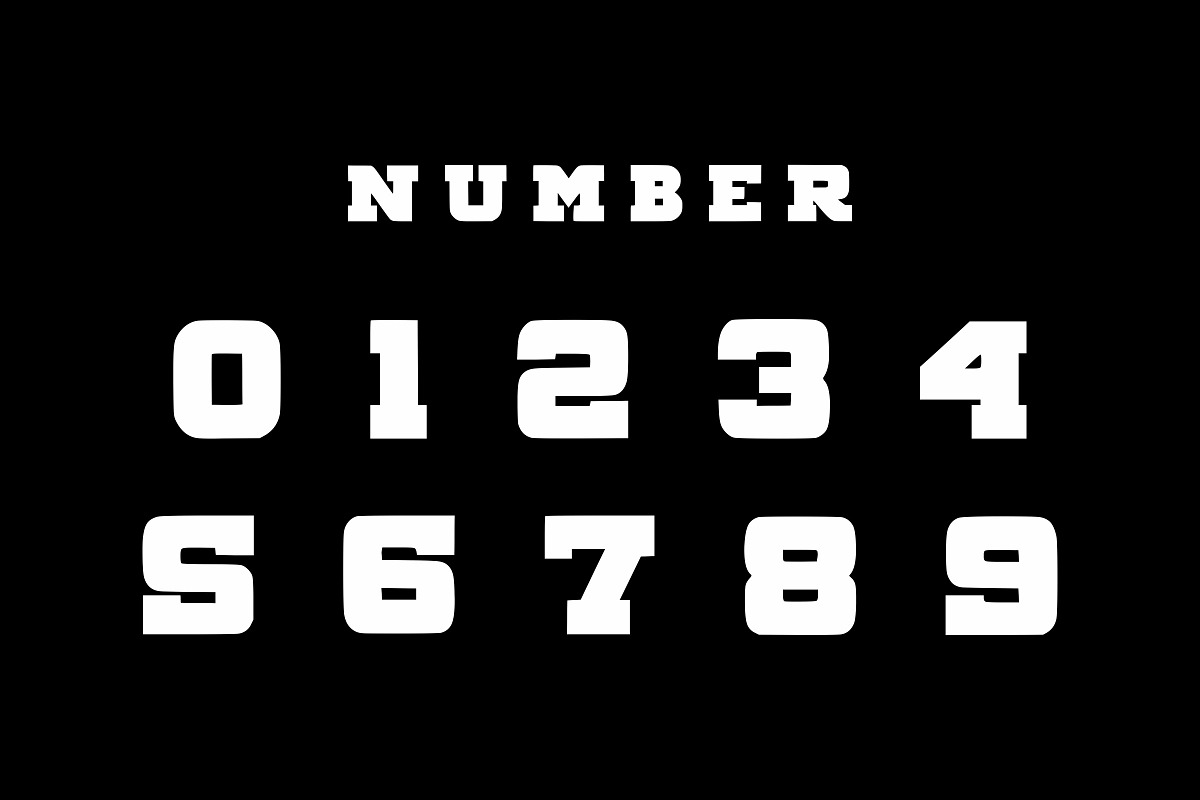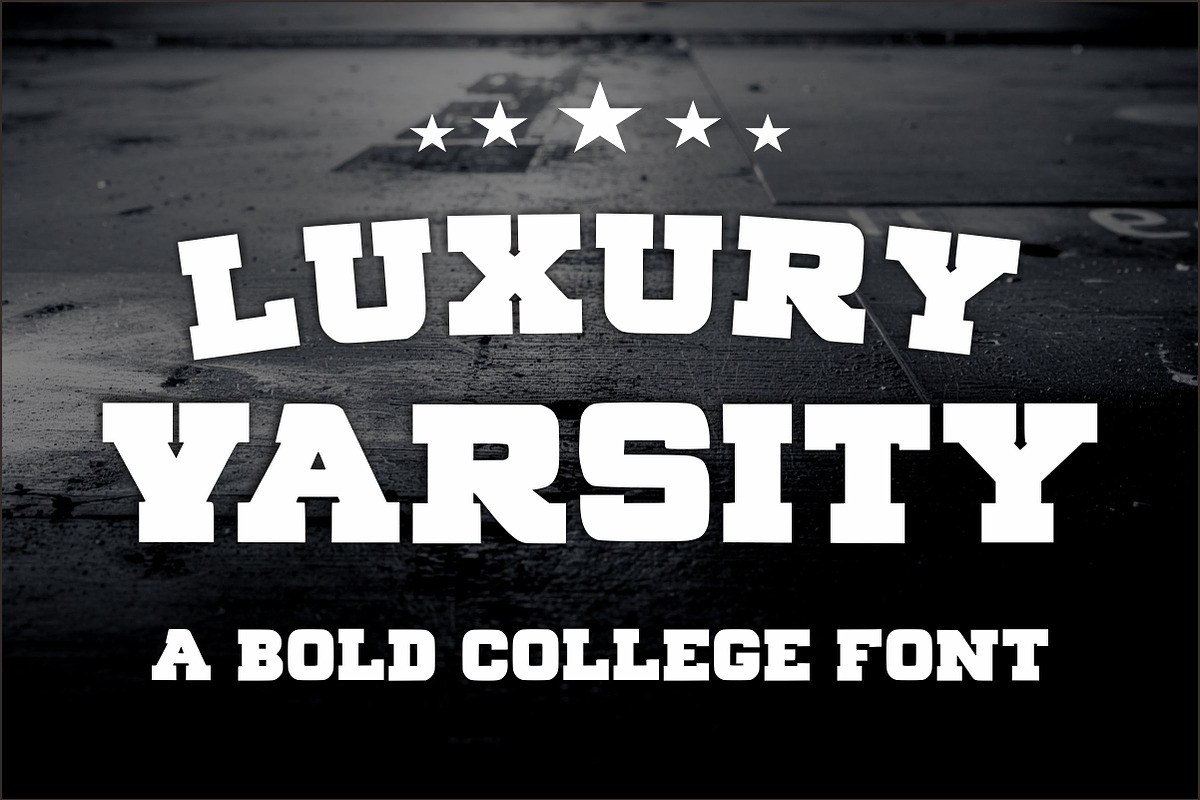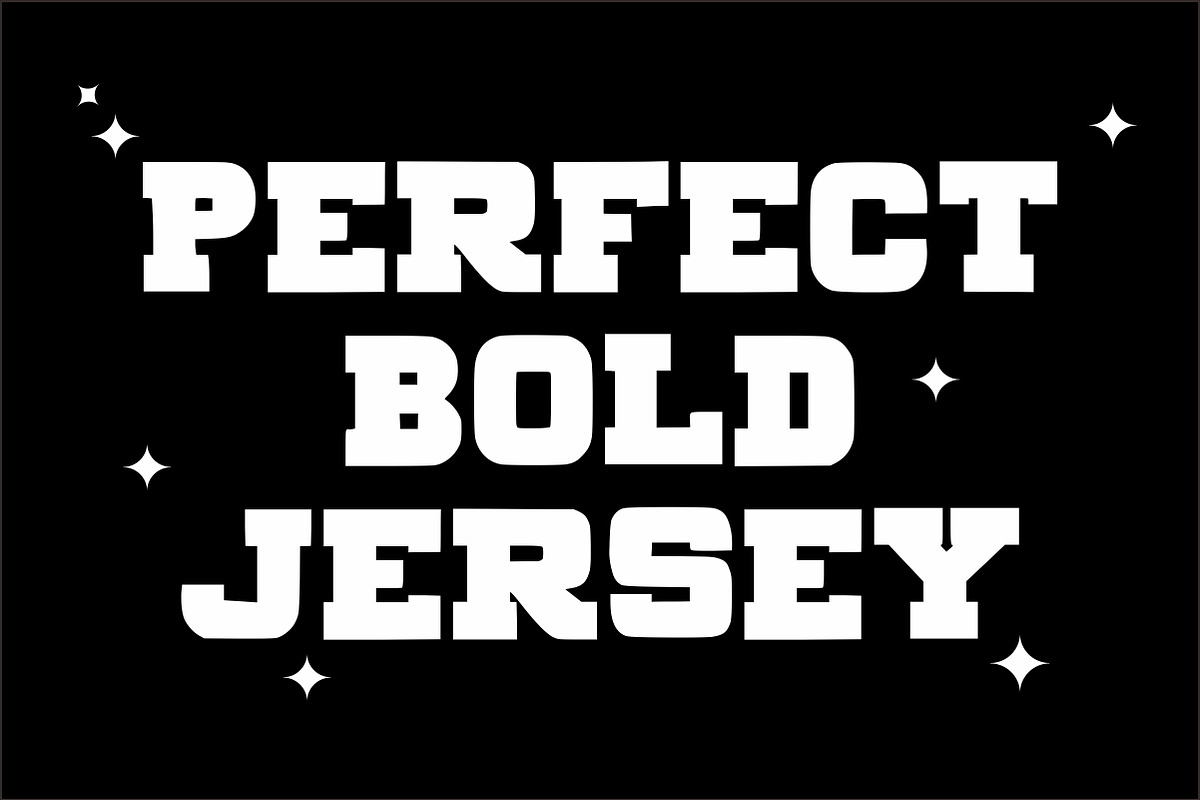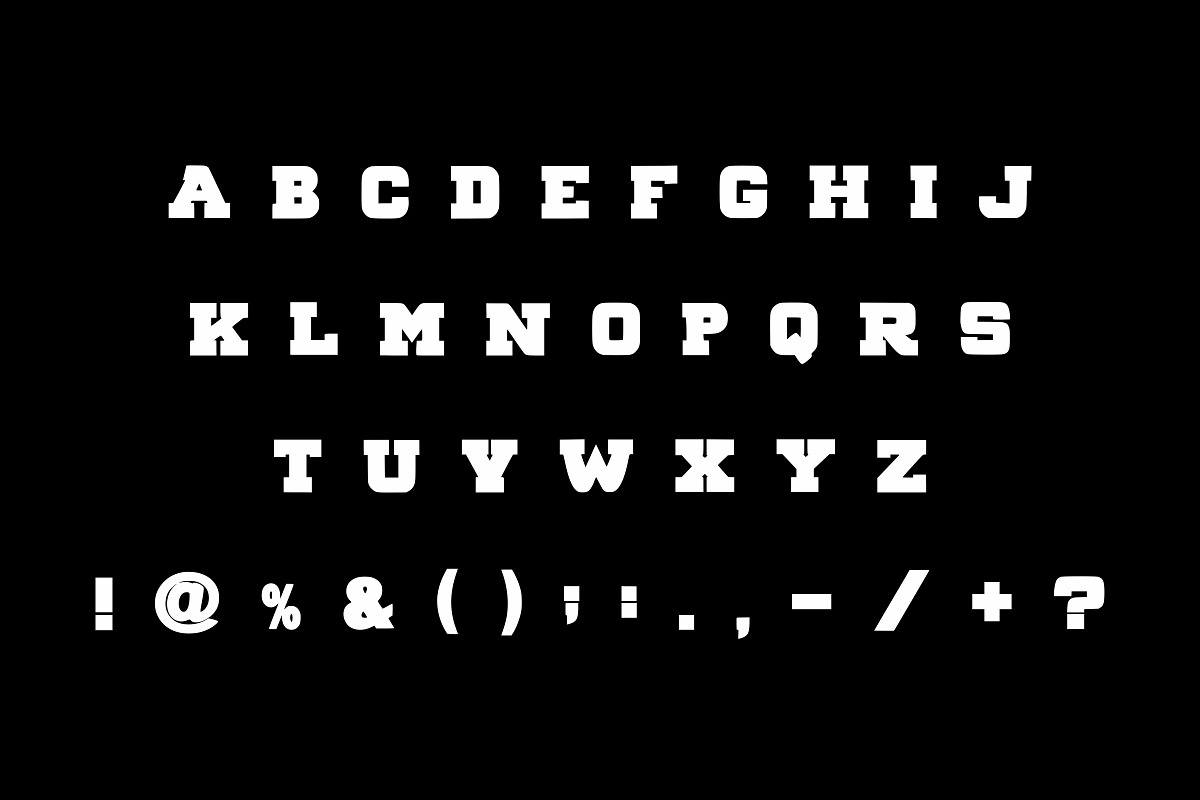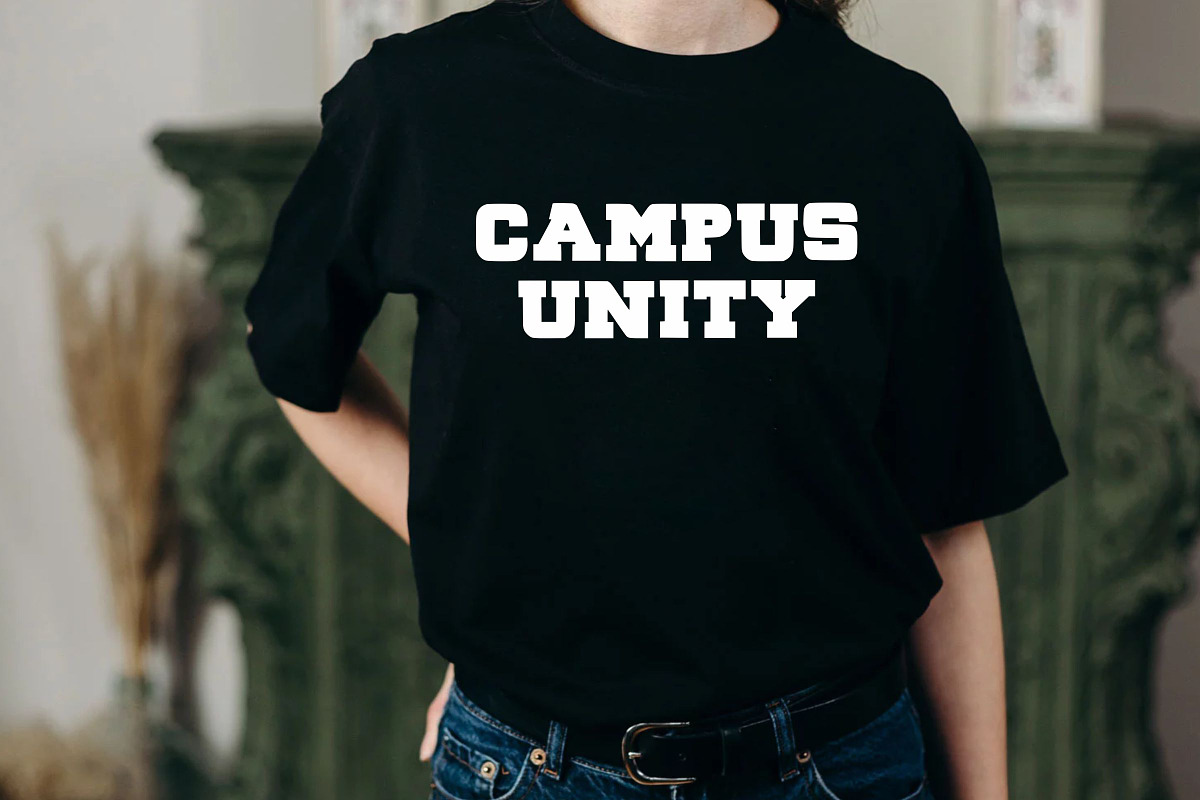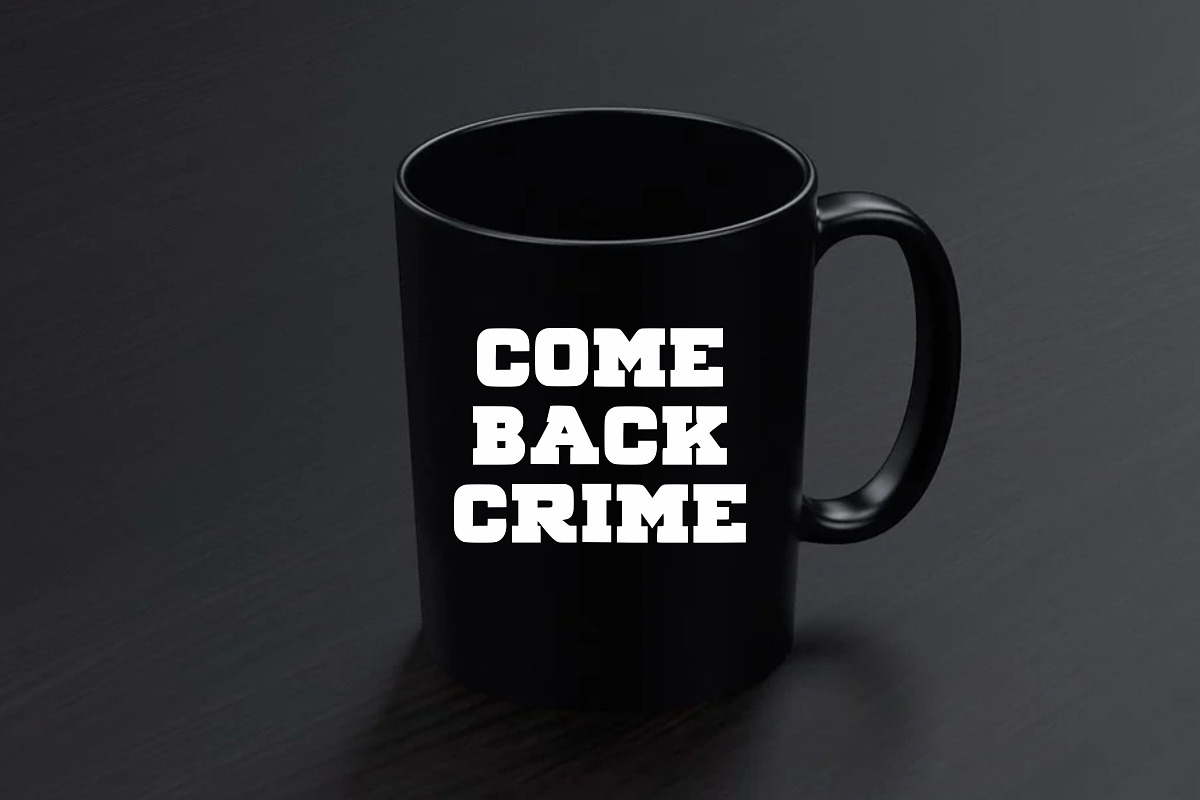
Luxury Varsity
Dominate the field and the page with Luxury Varsity typeface, the ultimate college and sports display font, engineered for high-impact titles and commanding headlines.
This powerhouse Luxury Varsity font captures the nostalgic spirit of American high school and university athletics, delivering a chunky, slightly rounded, and immensely bold presence that instantly conveys strength and tradition. Its powerful, condensed structure makes it perfect for eye-catching designs where you need every word to hit hard. The clean, solid letterforms ensure excellent legibility, even when used at smaller sizes for team names or jersey numbers, while the slight curve in the preview hints at versatility for dynamic, custom layouts.